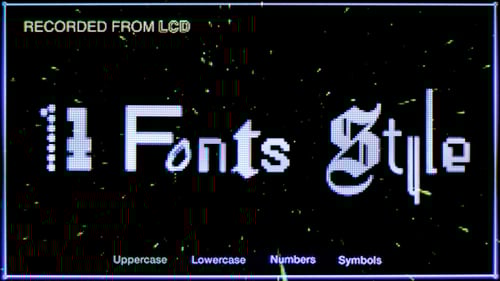
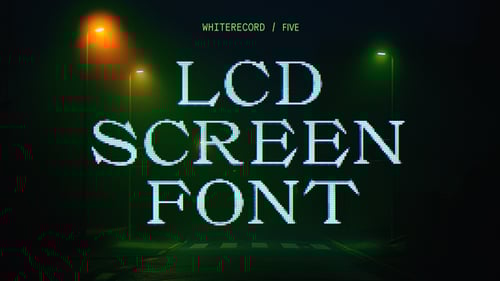
LCD Screen Font | Five
Each character is manually scanned on a real LCD screen. Saved all authentic textures, chromatic aberrations and luminosity.
Font: Messapia Regular